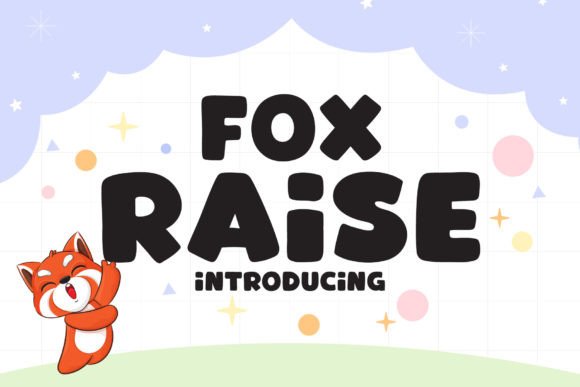
Ignite your designs with the vivacious and playful Fox Raise font, a display typeface brimming with personality and charm. Crafted by the talented Fox7, this font captures the essence of bold and legible handwriting, promising to add a touch of whimsy and individuality to any project you undertake.
Unleash your creativity with Fox Raise, the perfect font for breathing life into T-shirt designs, stickers, children's book covers, social media posts, and beyond. Its expressive letterforms dance across the page, captivating your audience and leaving a lasting impression. Make your designs shine with Fox Raise, the font that transforms the ordinary into the extraordinary.
Embrace the playful spirit of Fox Raise and let your imagination soar. Its meticulously crafted characters exude a sense of joy and wonder, inviting your audience to immerse themselves in your creations. From playful typography to eye-catching headlines, Fox Raise is the perfect companion for projects that demand attention and engagement.